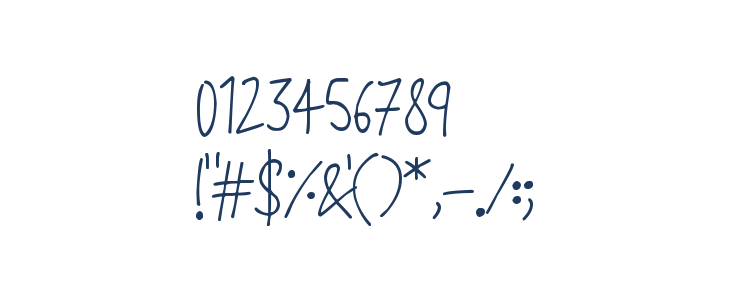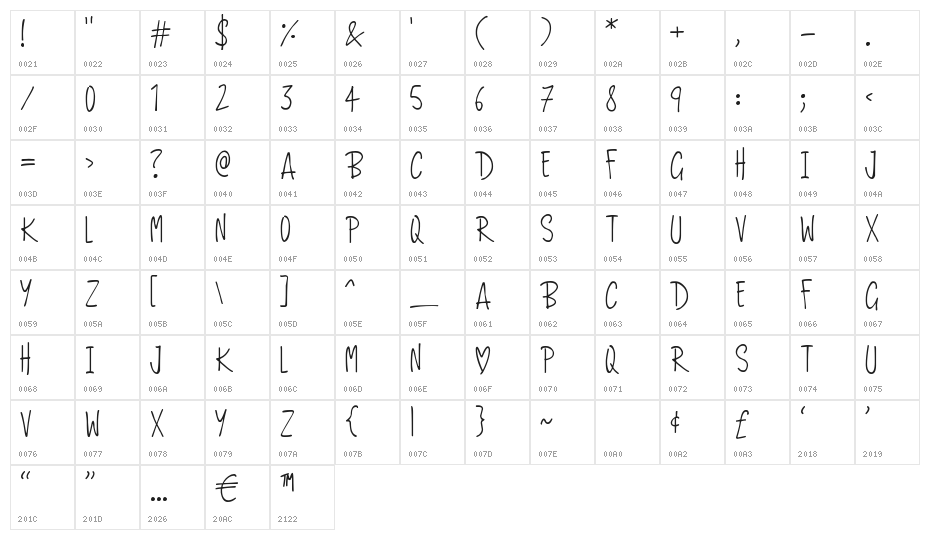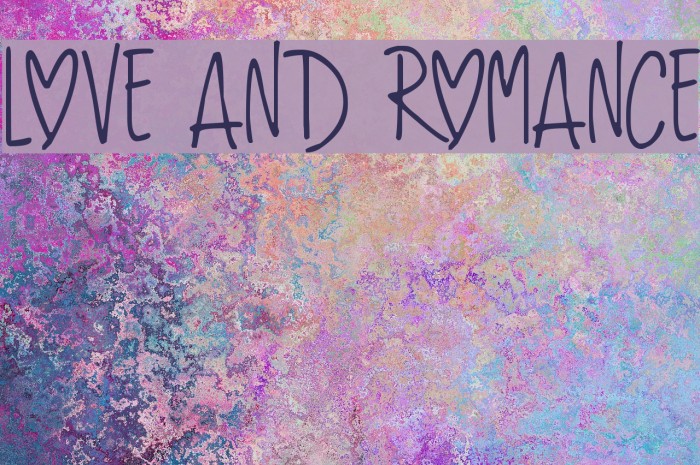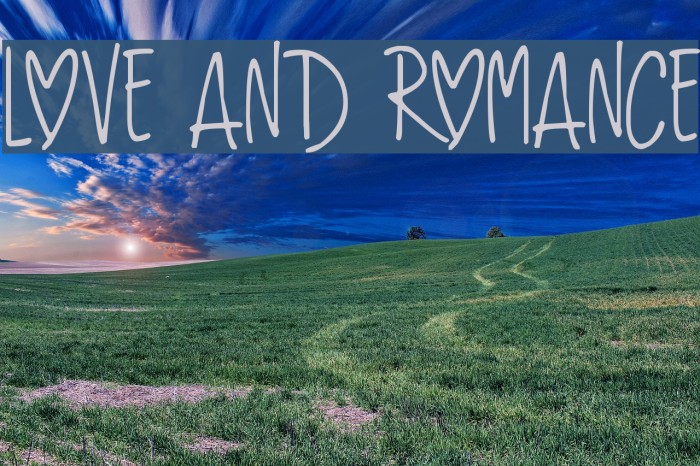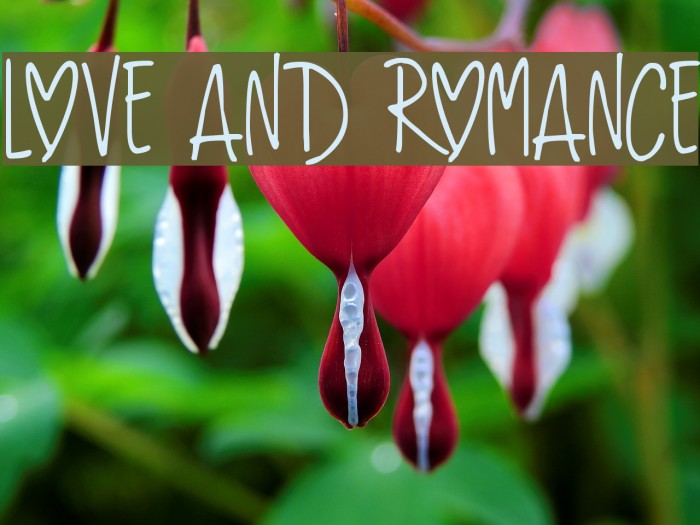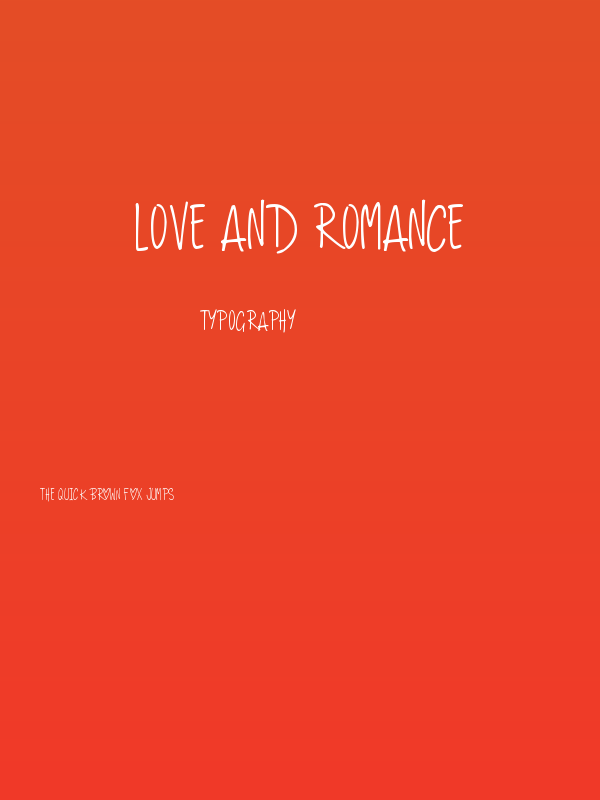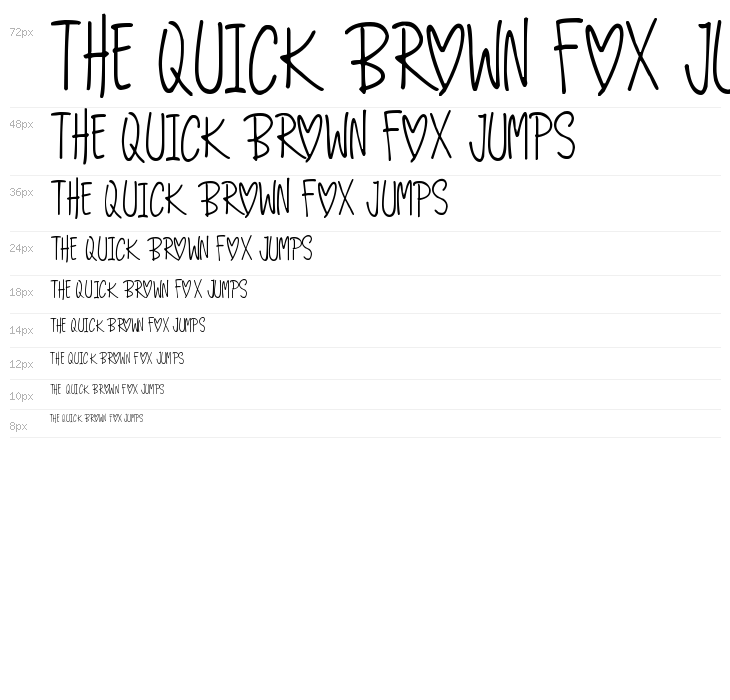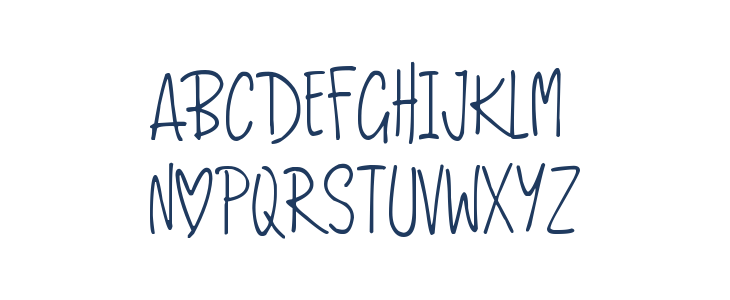
Love And Romance Font
Love And Romance Description
This playful and whimsical font features a handwritten style with a casual and friendly appearance. The letters are slightly slanted, giving a dynamic and lively feel. The strokes are consistent in thickness, providing a uniform look across characters. Notably, the heart-shaped 'O' adds a unique and charming touch, enhancing its romantic and fun personality. The font maintains a good balance between readability and decorative flair, making it suitable for various creative projects. Its informal style is perfect for conveying warmth and approachability.
| Proposed Projects | Ideal for greeting cards, wedding invitations, love notes, and playful branding. |